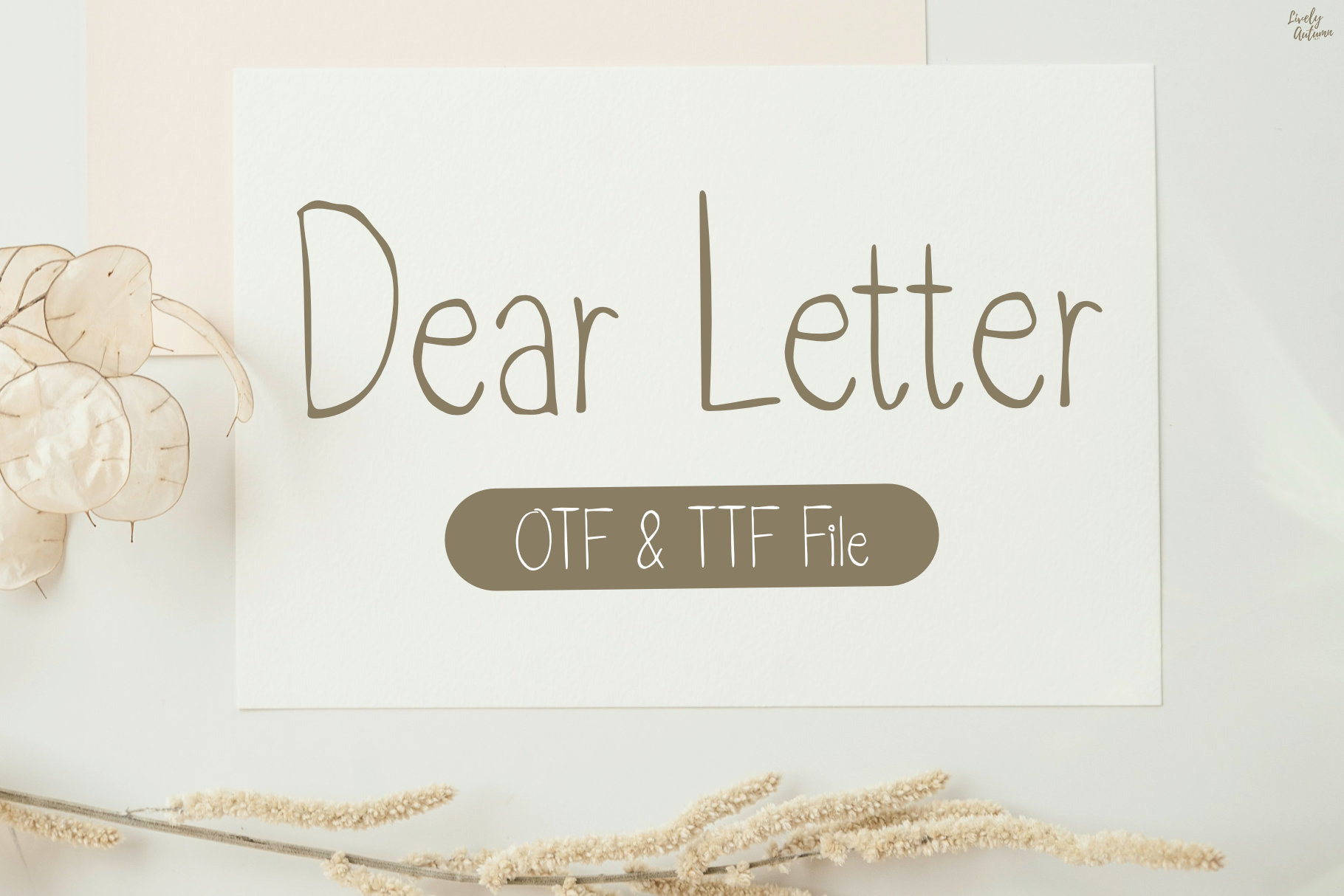
DearLetter | Handwriting Font
DearLetter Font is a simple, thin handwritten font that looks like it was written with ink. Perfect for your personal projects and various projects. From invitations to posters, social media graphics, journals, and much more.